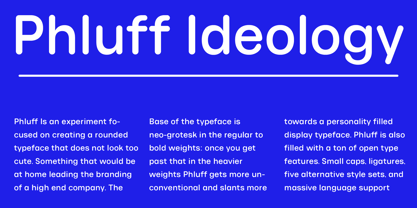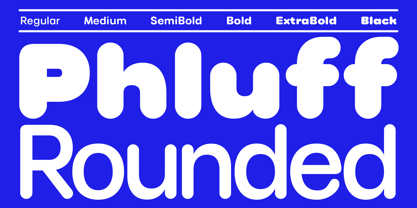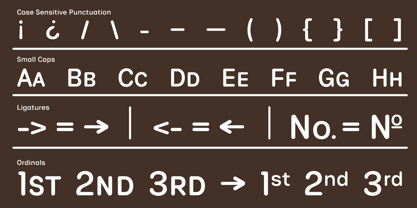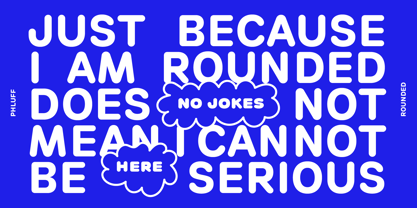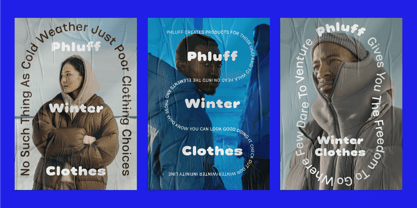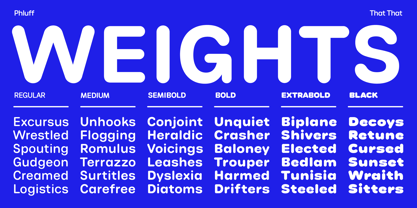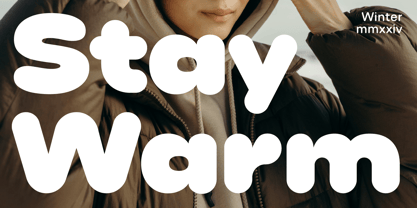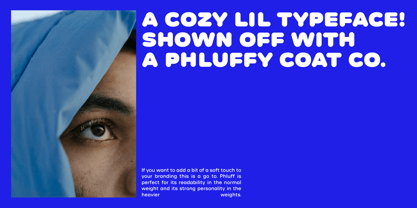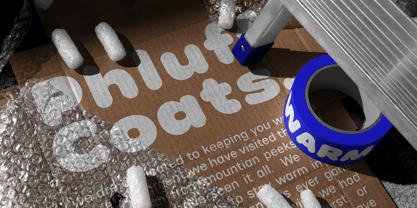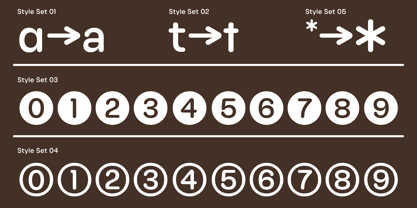
Phluff
by That That Creative
The Phluff Font Family was designed by Harbor Bickmore and published by That That Creative. Phluff contains 6 styles and family package options.
Phluff is a contemporary round sans serif Font Family. It is designed to feel at hone as body copy in its regular and bold weights and as a display font in the more extreme ends of the spectrum. This Typeface is made to add a bit of a softness to your design without taking away any of the elevated design sense. This font is perfect for branding high design centric products or for charming toddlers birthday invitations.